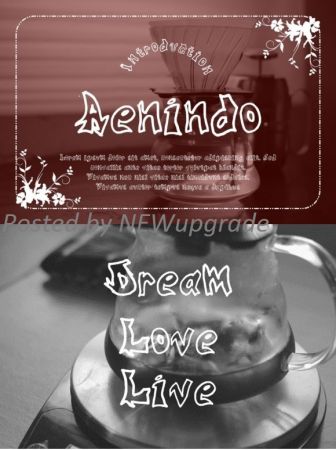
Aenindo results out of a stunning pairing of a brush pen and pencil that makes it look incredibly endearing and authentic. Use this gorgeous and unique display font to bring any DIY project to life!